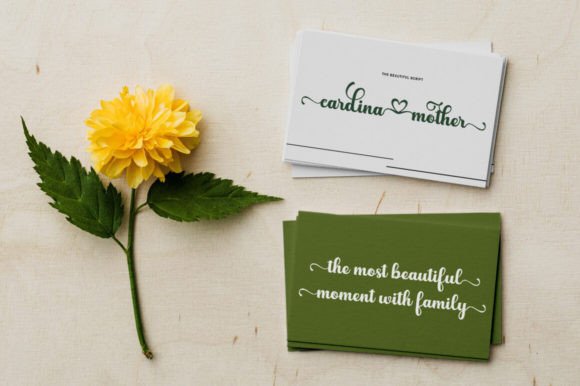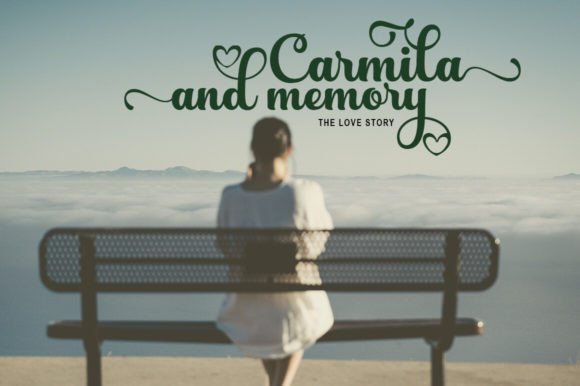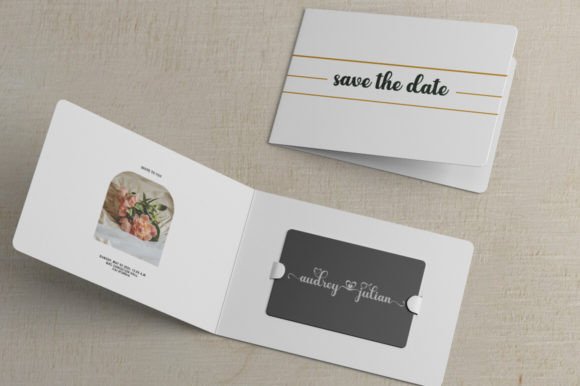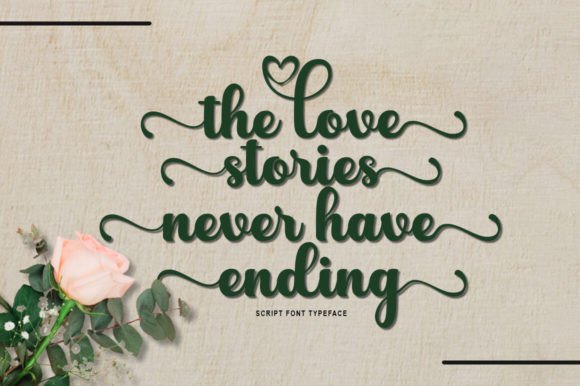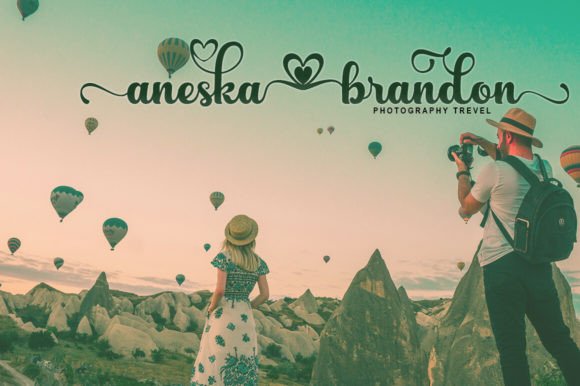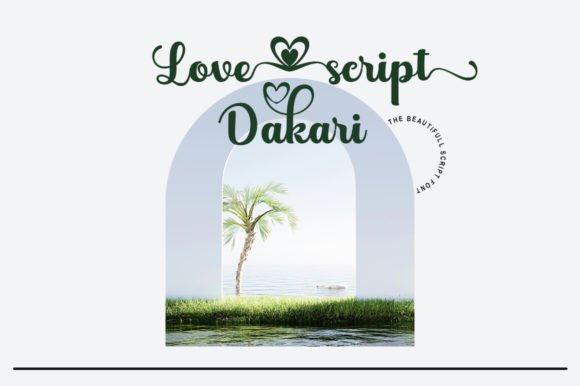
Introduction to Hakime Font
As a designer, there’s nothing quite like the thrill of discovering a new font that elevates your creative project to the next level. For me, that moment came when I stumbled upon the Hakime Font – a stunning script font that has become an indispensable design resource.
With its smooth, flowing strokes and meticulously crafted letters, the Hakime Font exudes a unique blend of sophistication and warmth that’s perfect for everything from wedding invitations to logos and branding. Whether you’re a seasoned pro or just starting out, this versatile font is sure to become a trusted companion in your design journey.
What sets Hakime apart is its perfect balance of classic and modern styles, making it an ideal choice for designers who want to add an exclusive flair to their work without sacrificing readability. And the best part? It’s available for free download, complete with a transparent background, making it a high-quality addition to any design arsenal.
Key Features of Hakime Font
- High-Quality Design Resource: The Hakime Font is a meticulously crafted, high-quality design resource perfect for creative projects.
- Unique Script Style: The Hakime Font boasts a unique script style, adding a touch of elegance and sophistication to any creative project.
Honest Review: Hakime Font
I recently stumbled upon the Hakime Font, and I’m excited to share my thoughts on this design resource. The free download was a pleasant surprise, and I was eager to put it to the test.
What works well: ✨ The font’s unique aesthetic makes it perfect for creative projects that require a touch of elegance. I appreciate the transparent background, which allows for seamless integration with any design. The high quality of the font is evident, and it’s a great addition to any design arsenal.
Limitations: ⚠️ The font may not be suitable for projects that require a bold, attention-grabbing font. Additionally, some users may find the font’s design too minimalist.
Overall, I’m impressed with the Hakime Font. It’s a great design resource for those looking for a high-quality, elegant font. While it may not be perfect for every project, it’s definitely worth considering for creative projects that require a touch of sophistication.